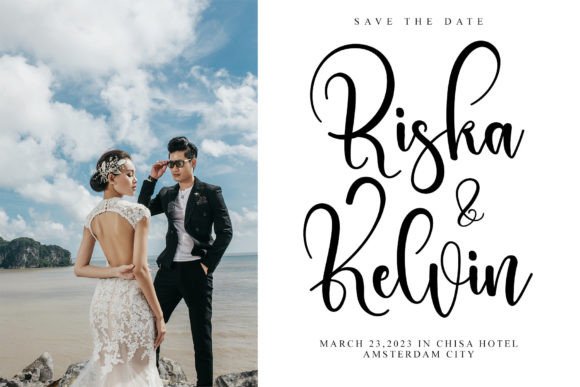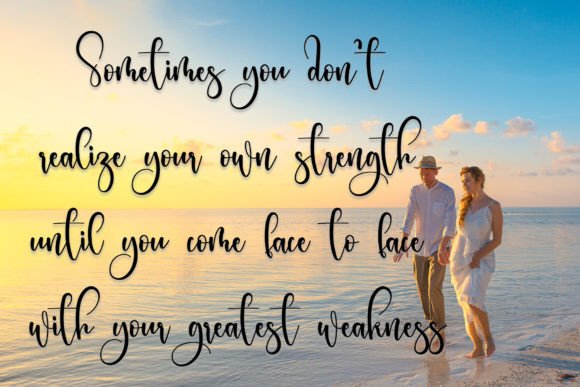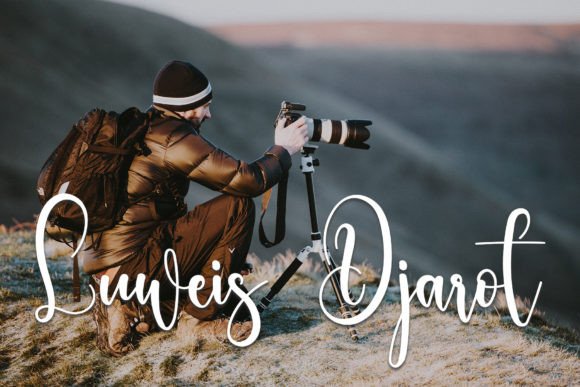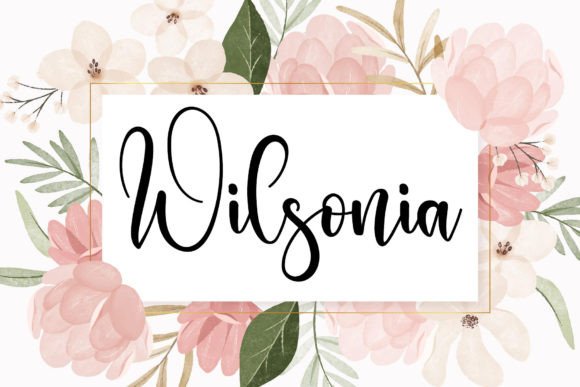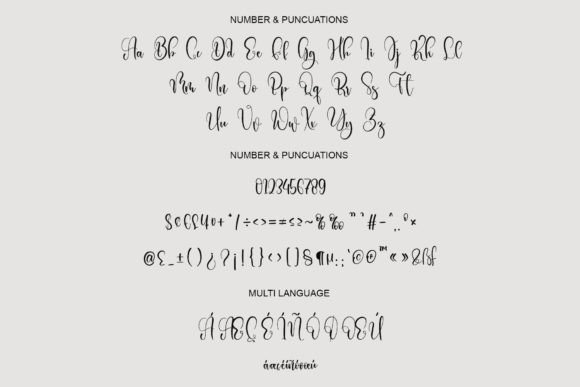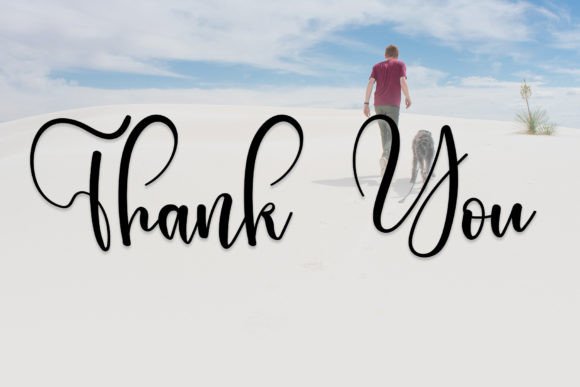
Introduction to Significant Font
Have you ever stumbled upon a font that perfectly captures the essence of your creative project? For many designers, this moment is what makes all the hard work worth it. As you browse through a sea of design resources, you come across a font that not only enhances your project’s beauty but also tells a story. That’s exactly what the Significant Font does – it brings a touch of elegance and sophistication to your creative endeavors.
With its contemporary atmosphere and impeccable form, inspired by a timeless classic calligraphy, the Significant Font is a valuable asset for any designer. Whether you’re working on a high-quality brochure, a website, or a social media campaign, this font is sure to make your project stand out. And the best part? It’s available for a free download, giving you the freedom to experiment with its unique style and create something truly remarkable.
From its balanced and varied design to its transparent background, the Significant Font is a game-changer for designers looking to elevate their creative projects. So why settle for anything less when you can make a statement with the Significant Font?
Key Features of Significant Font
- High-quality, professional design suitable for creative projects
- Available in 6 different styles, each with its unique characteristics
- Perfect design resource for graphic designers, digital artists, and web developers
Honest Review: Significant Font
I recently came across the Significant Font, a free download that’s perfect for designers working on creative projects. Upon closer inspection, I was impressed by the high quality of this font. It’s great to see designers putting in the effort to create such a detailed and well-designed font.
What works well with the Significant Font is its versatility. ✨ It’s perfect for use on a variety of design elements, from headings to body text, and even as a decorative element. I also appreciate the transparent background, which makes it easy to layer over other design elements.
- Perfect for headings, body text, and decorative elements
However, I did notice a few limitations with the Significant Font. ⚠️ The font selection is limited, and I wish there were more options to choose from. Additionally, the font may not be suitable for use in very small sizes, as the details may become distorted.
Overall, I’m impressed with the Significant Font. It’s a great addition to any designer’s toolkit, and I’m excited to see how it can be used in creative projects. With a little creativity, this font can really make a significant impact (no pun intended!).
Significant Font is a high-quality design resource that can elevate your creative project with its unique style and versatility. This free download is perfect for designers and non-designers alike, offering a transparent background that can be easily customized to fit your needs.
Tips for Getting the Most Out of Significant Font
To get the most out of Significant Font, try the following:
- Use Significant Font in combination with other design elements to create a cohesive look.
- Save your design as a template to use for future projects.
Common Use Cases for Significant Font
Significant Font is perfect for:
- Branding and logo design.
- Marketing materials, such as bro